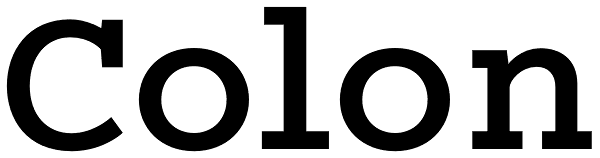
Colon
COLÓN is a Slab Serif type family of three weights with matching italics. The typeface design was influenced by the nostalgia for the aesthetic of a typewriter. Colón extended family consists of two sub-families: Colón Mono with monospaced glyphs...